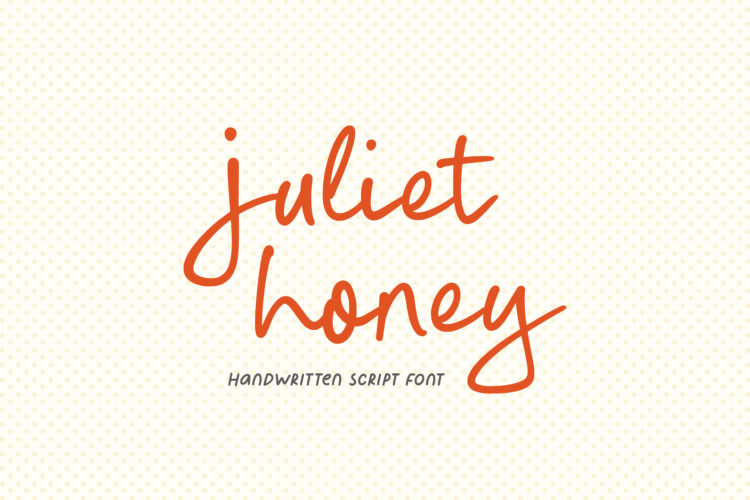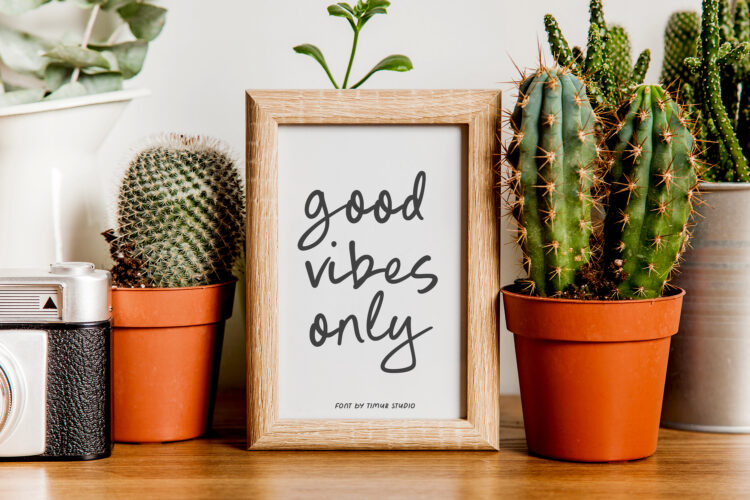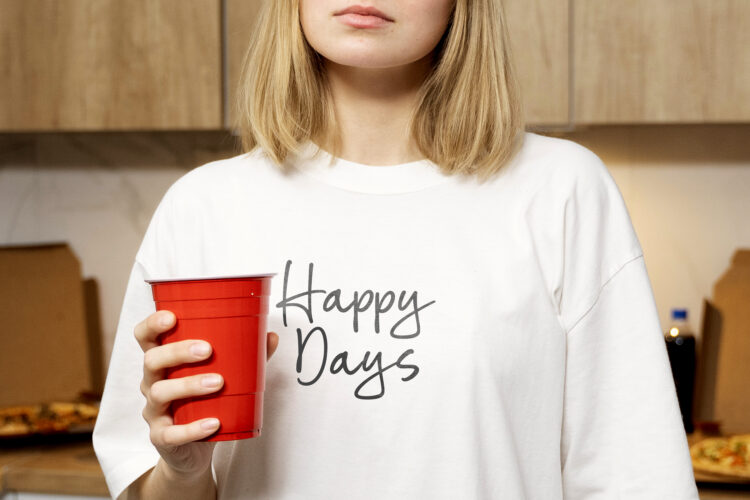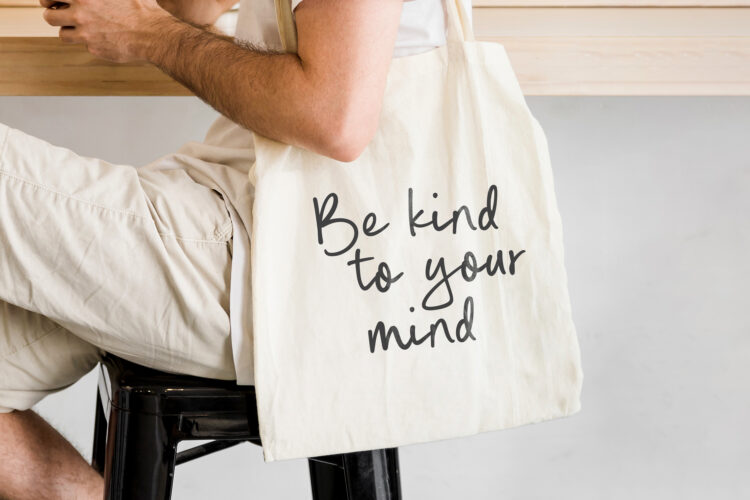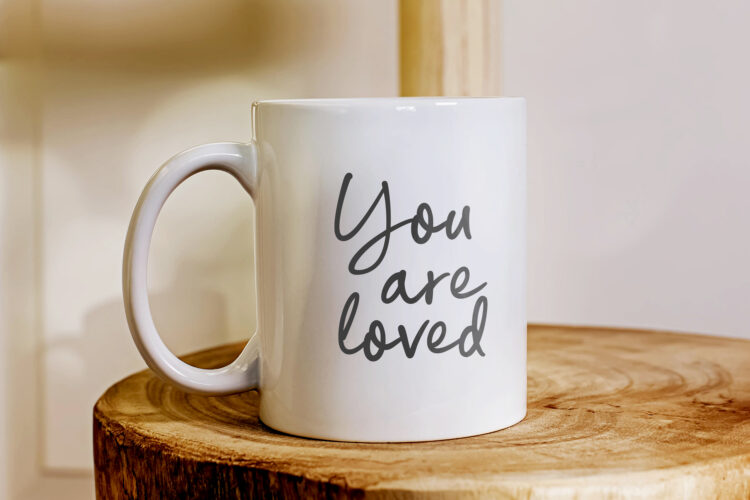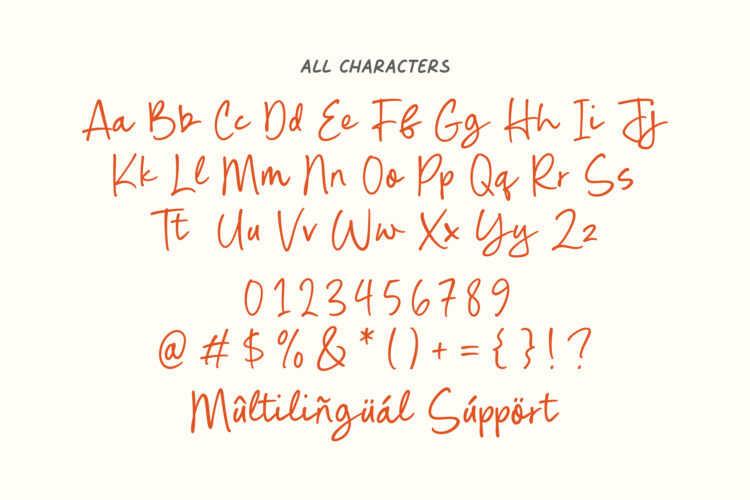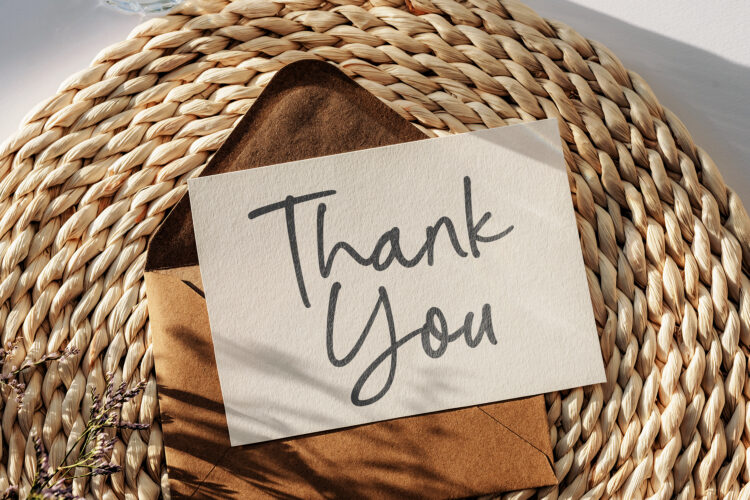
Juliet Honey is a Handwritten Script Font
This font is a charming handwritten script font with a smooth, natural flow and elegant curves. Its warm style makes it perfect for logos, branding, wedding invitations, social media, packaging, and other creative projects that call for a touch of authenticity and sophistication.
Juliet Honey Font also supports multilingualism